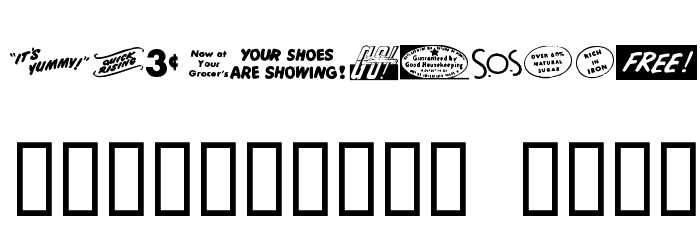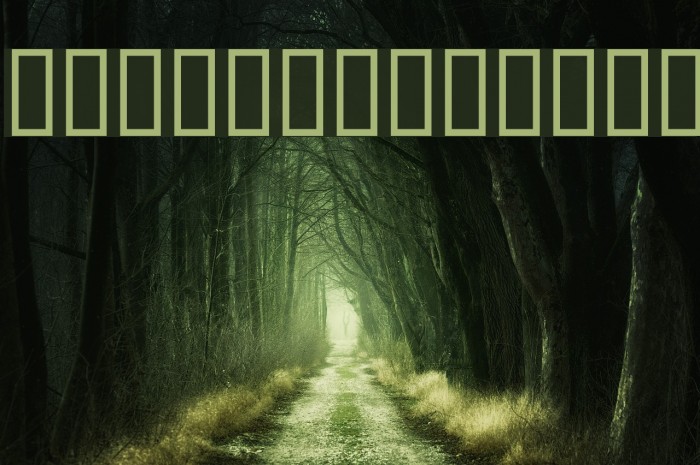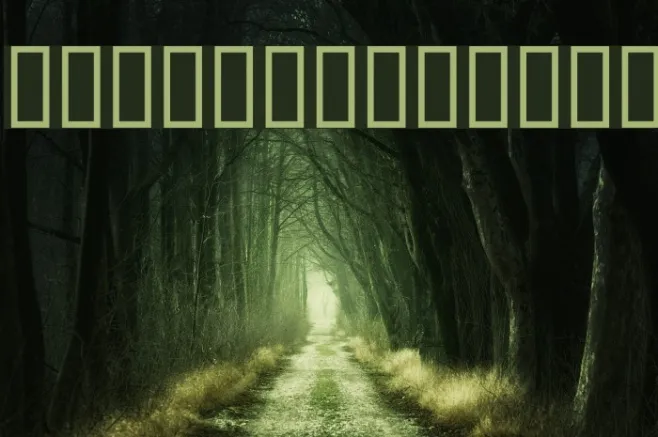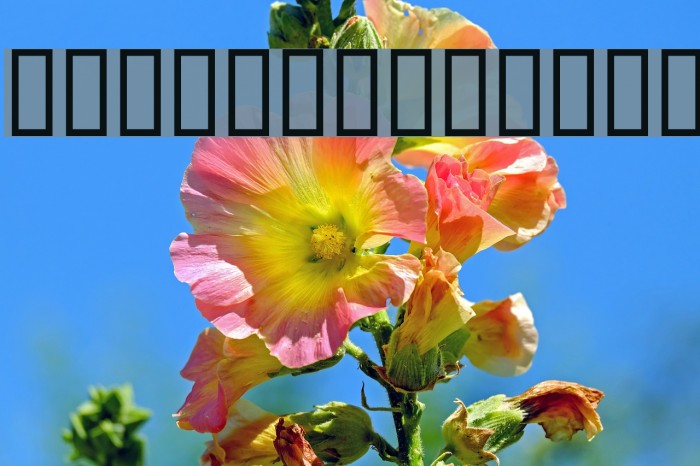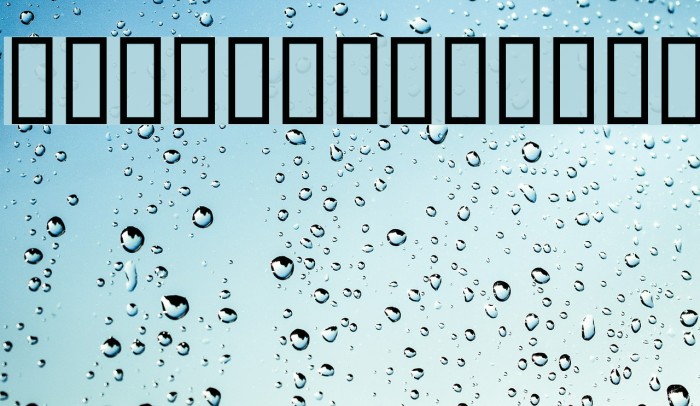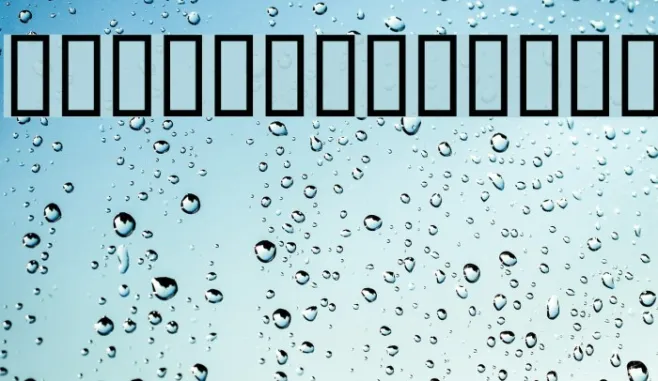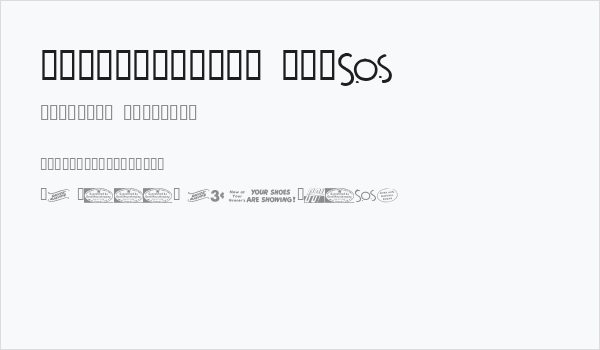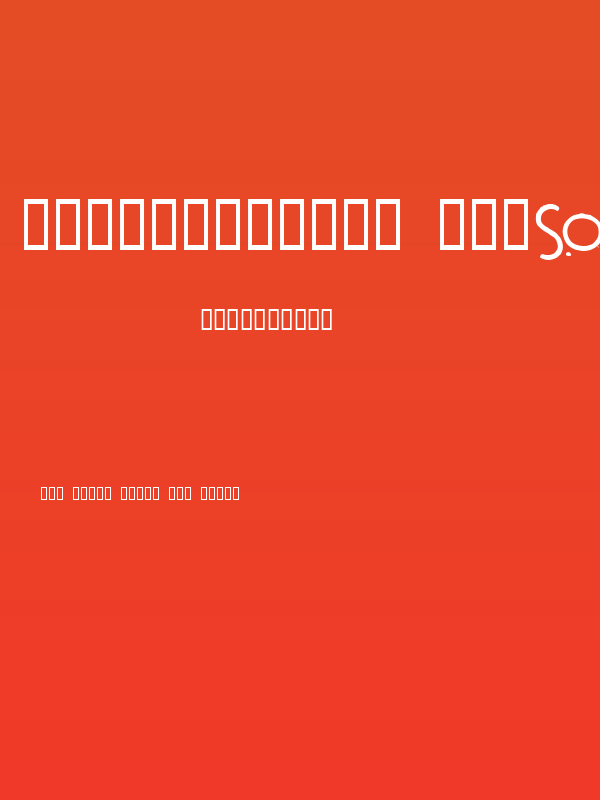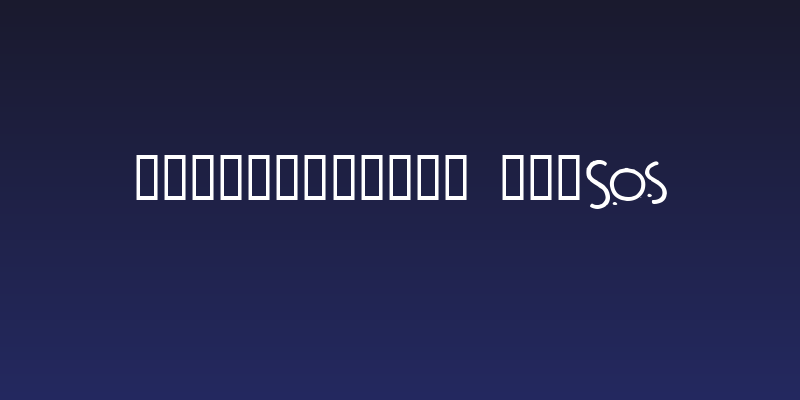
OldTimeDings Set6 Font
OldTimeDings Set6 Description
This set features a collection of vintage-inspired dingbats and decorative elements reminiscent of old-time advertisements and signage. Each character is a unique graphic, ranging from playful slogans to retro symbols, capturing the essence of mid-20th-century design. The style is bold and eye-catching, with a mix of quirky illustrations and text elements that evoke nostalgia. These graphics are perfect for adding a touch of vintage charm to any project, with a playful and whimsical flair that stands out.
| Use Case | Logos, Posters, Decorative elements |
| Proposed Projects | Ideal for retro-themed designs, vintage posters, nostalgic branding, and creative projects that require a touch of old-time charm. |